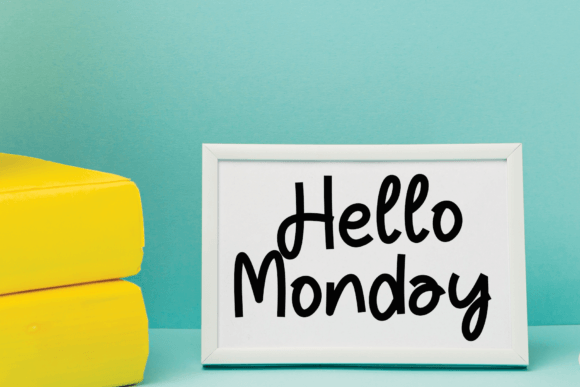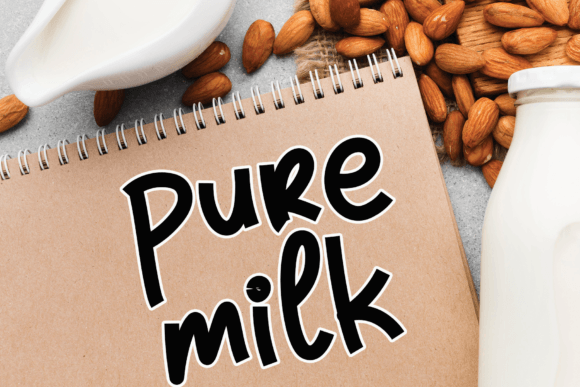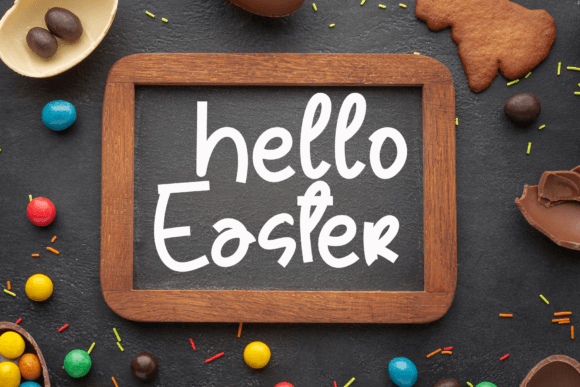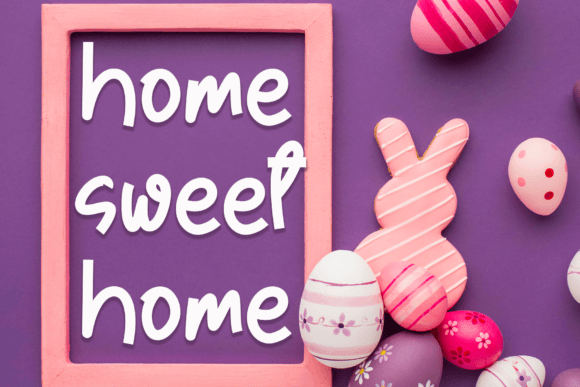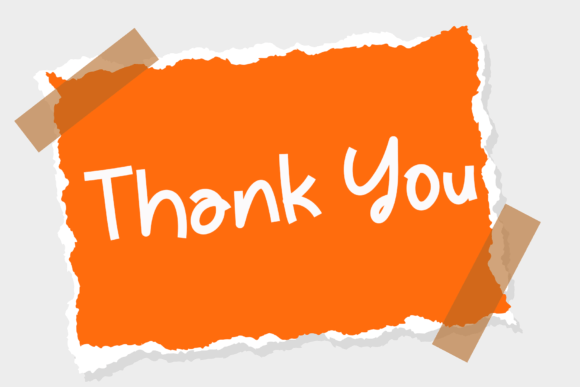
Caterpillar Font: The Ultimate Choice for Creative Projects
Are you a designer, crafter, or DIY enthusiast looking for a font that can add a touch of friendliness and playfulness to your creative projects? Look no further than the Caterpillar Font! This adorable handwritten font is perfect for a wide range of applications, from Instagram posts to calligraphy scripts, and is sure to turn any idea into a true piece of art.
What is Caterpillar Font?
Caterpillar Font is a cute and casual handwritten font that exudes a warm and friendly feel. Its unique and charming lettering style makes it perfect for designers and crafters who want to add a personal touch to their work. Whether you’re creating social media graphics, crafting DIY projects, or designing marketing materials, Caterpillar Font is the perfect choice.
Key Features of Caterpillar Font
- Cute and Casual Design: Caterpillar Font features a playful and informal design that’s perfect for creative projects that require a friendly and approachable feel.
- Handwritten Style: This font boasts a beautiful handwritten style that’s reminiscent of calligraphy scripts, making it perfect for DIY projects and crafts.
- Instagram Ready: With its trendy and modern design, Caterpillar Font is perfect for Instagram posts, stories, and reels.
- Multipurpose: This font can be used for a wide range of applications, from digital graphics to print materials.
Why Choose Caterpillar Font?
So why choose Caterpillar Font over other fonts? Here are just a few reasons:
- Unique and Eye-Catching: Caterpillar Font is a one-of-a-kind font that will make your creative projects stand out from the crowd.
- Easy to Read: Despite its playful design, Caterpillar Font is easy to read and understand, making it perfect for body text and titles.
- Customizable: With its wide range of applications and formats, Caterpillar Font can be easily customized to fit your creative vision.
Use Cases for Caterpillar Font
Caterpillar Font is a versatile font that can be used in a variety of creative projects, including:
- Instagram Graphics: Use Caterpillar Font to create eye-catching Instagram posts, stories, and reels that showcase your creativity.
- DIY Projects: Add a personal touch to your DIY projects, such as crafting, scrapbooking, and journaling, with Caterpillar Font.
- Marketing Materials: Use Caterpillar Font to create unique and engaging marketing materials, such as brochures, flyers, and business cards.
- Calligraphy Scripts: Caterpillar Font is perfect for calligraphy scripts and hand-lettering projects.
Tips for Using Caterpillar Font
Here are some tips for using Caterpillar Font in your creative projects:
- Pair with Other Fonts: Experiment with pairing Caterpillar Font with other fonts to create a unique and eye-catching combination.
- Adjust Font Size and Color: Adjust the font size and color to fit your creative vision and project requirements.
- Use in Combination with Images: Use Caterpillar Font in combination with images and graphics to create visually appealing designs.
In conclusion, Caterpillar Font is a unique and versatile font that’s perfect for designers, crafters, and DIY enthusiasts. With its cute and casual design, handwritten style, and multipurpose applications, Caterpillar Font is sure to turn any creative idea into a true piece of art. So why wait? Download Caterpillar Font today and start creating!